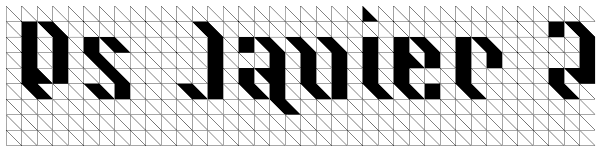
Ps Javier
The font is named after my son Javier. He studies architecture. Font Javier follows architectural principles. Javier 1, Javier 2 and Javier 3 can be combined with each other.
Ps Javier 1
Ps Javier 1 Font
Ps Javier 3
Ps Javier 3 Font
Ps Javier 2
Ps Javier 2 Font